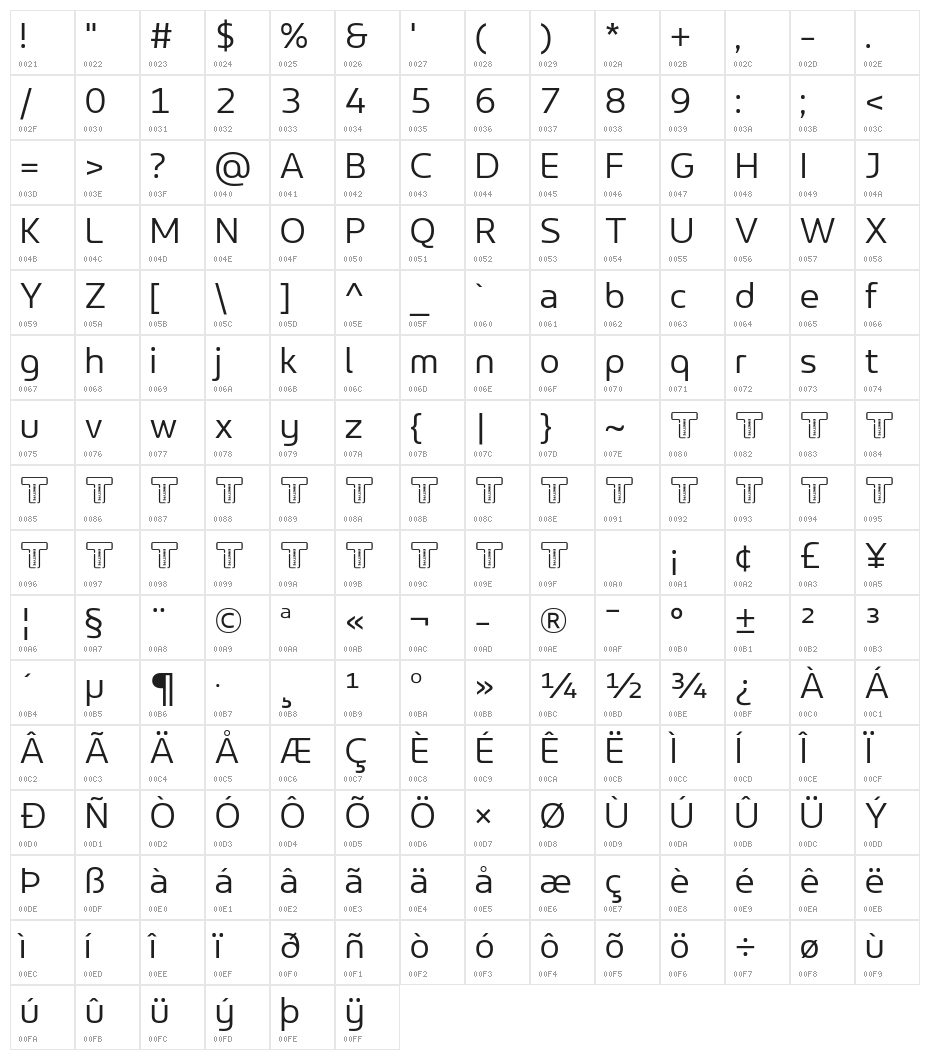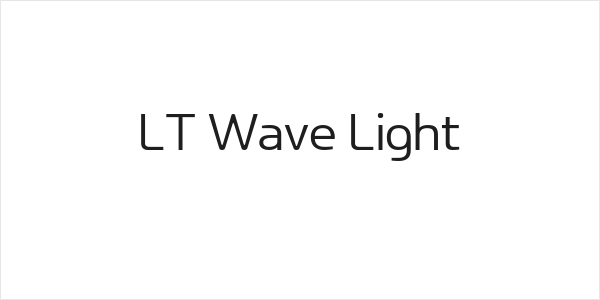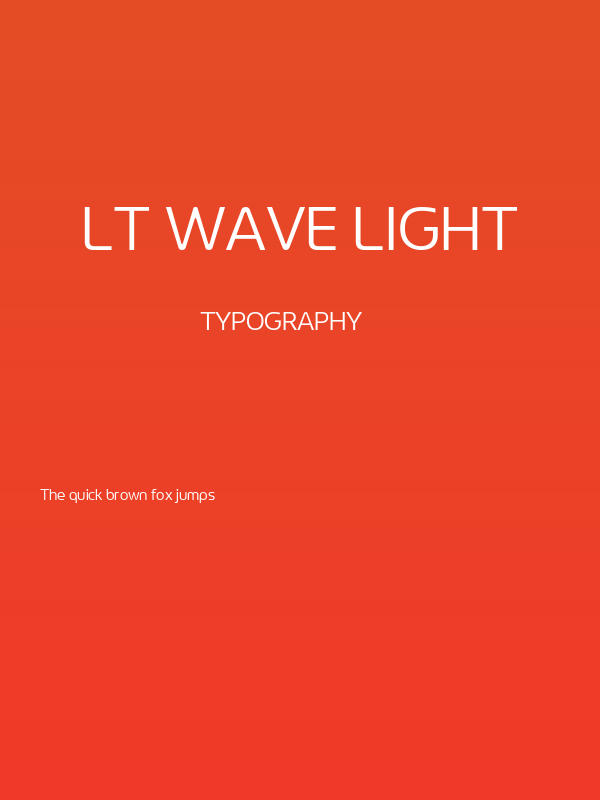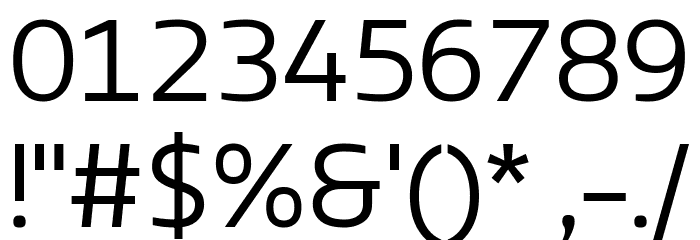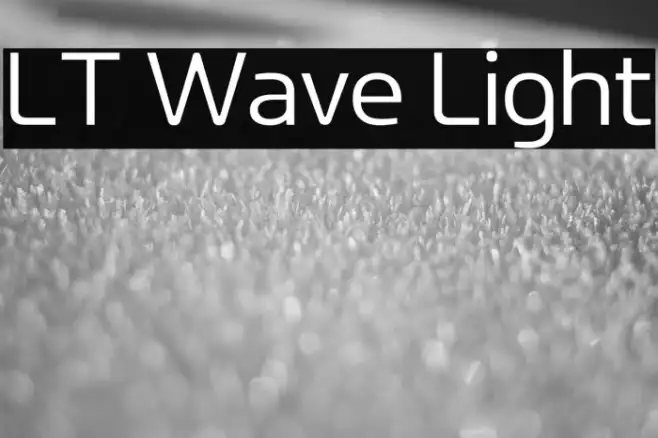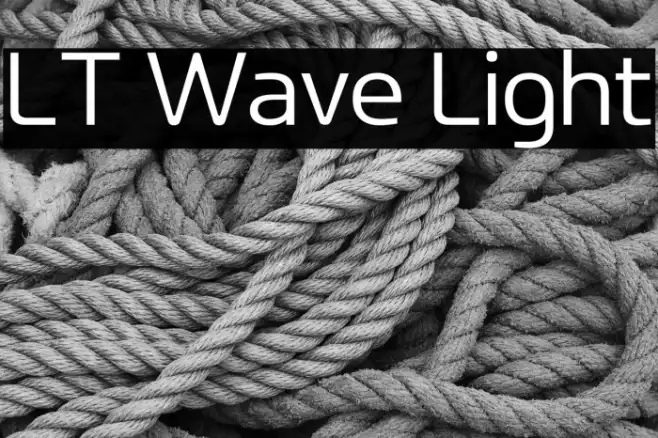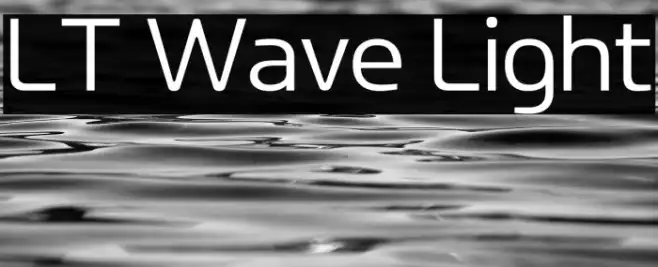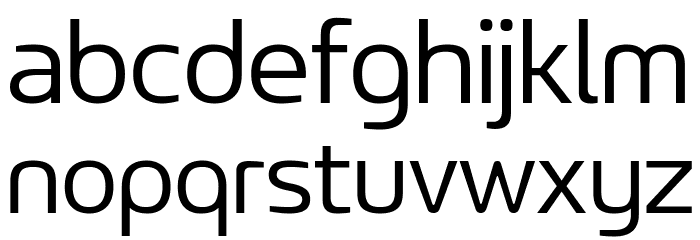
LT Wave Light Font
LT Wave Light Description
This font features a clean and modern sans-serif design with smooth curves and a uniform stroke width. The characters are well-proportioned, offering a harmonious and balanced appearance. Its simplicity and elegance make it versatile for various design applications. The uppercase letters are bold and assertive, while the lowercase letters maintain a friendly and approachable feel. Numbers and special characters are clearly defined, ensuring readability across different contexts. The overall aesthetic is contemporary and minimalistic, suitable for both digital and print media.